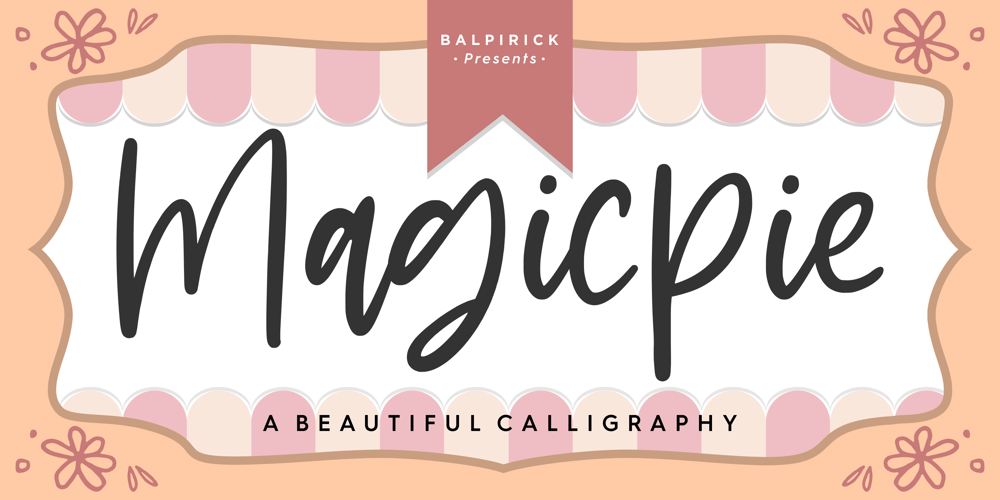
Magicpie Font Family was designed by Restu Angga and published by Balpirick. Magicpie contains 1 styles and family package options. Magicpie is a quirky and authentic handwritten font. It has a playful style, making all of your projects more exciting than you ever thought they could be. Let your imagination unleash with the stunning Magicpie!